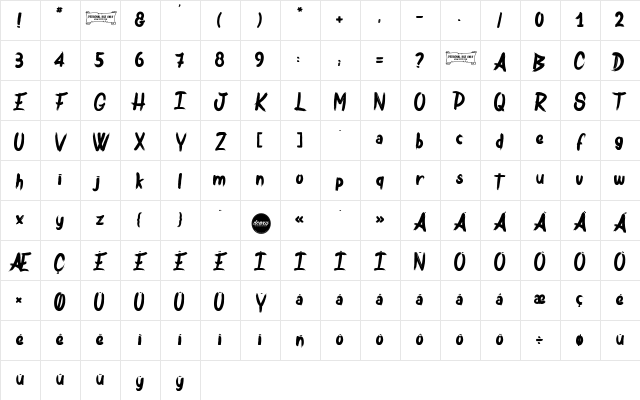
Bulldozer Regular Free Font
Bulldozer Regular
Foundry: dcoxy Medina Gregory
Designer: dcoxy Medina Gregory
Design Context for Bulldozer
Bulldozer is a composed and adaptable typeface that performs quietly and consistently across a wide range of design contexts.